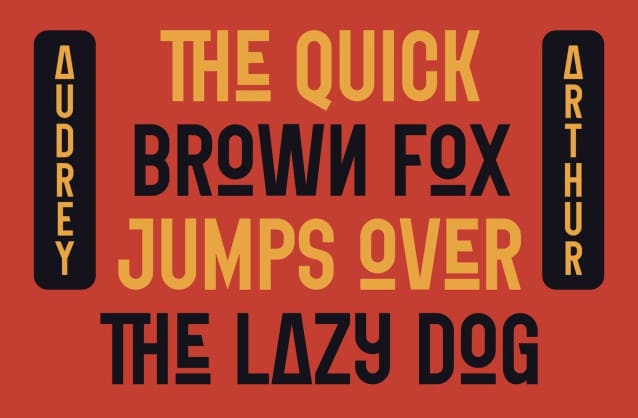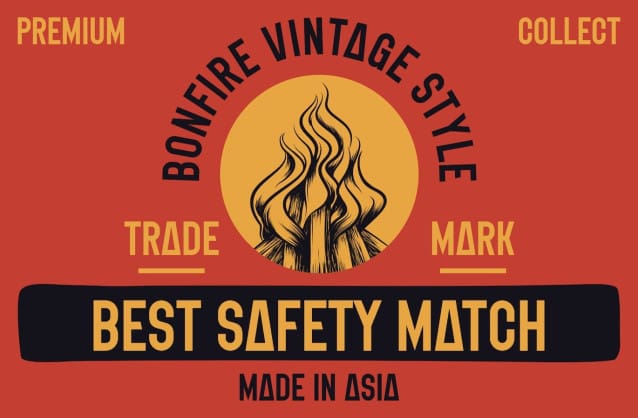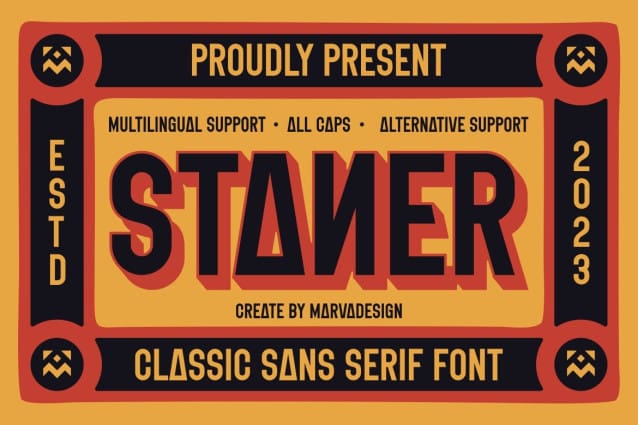
Staner Font
Staner Font – Modern Font is a bold and authentic display font. The font is suitable for any branding project like logo, Template Design, Product and many more. outstanding in a wide range of contexts.